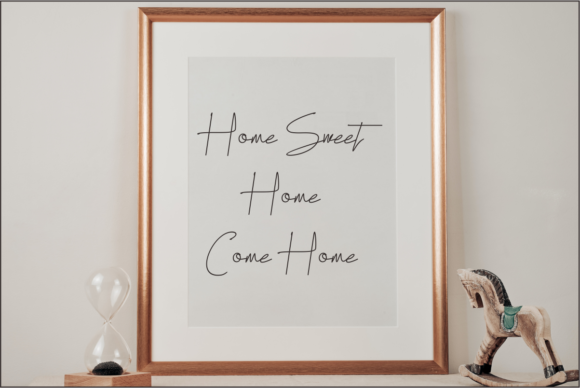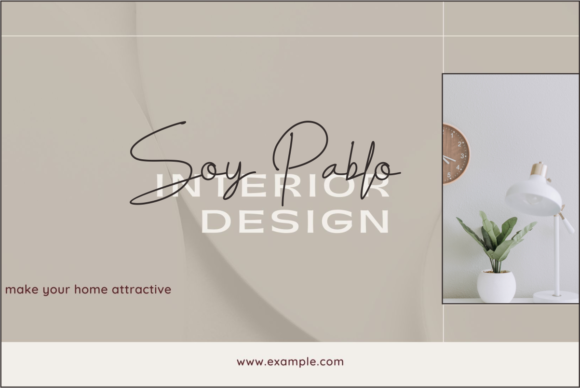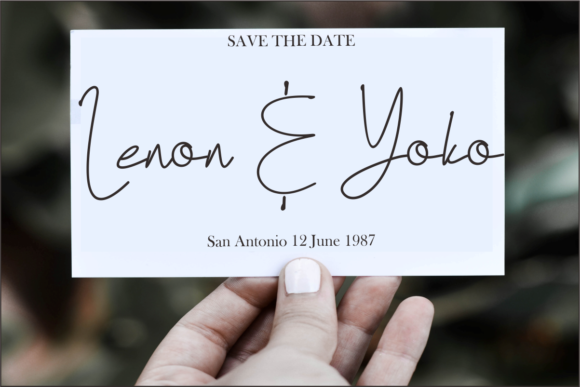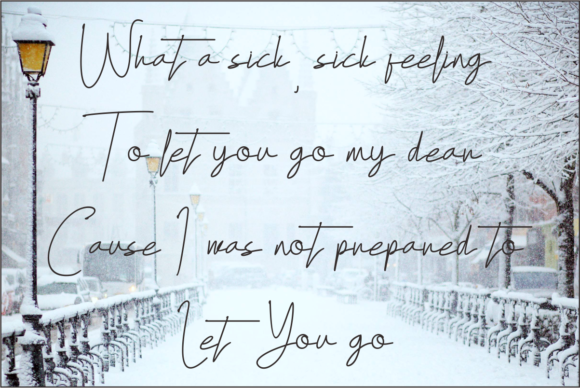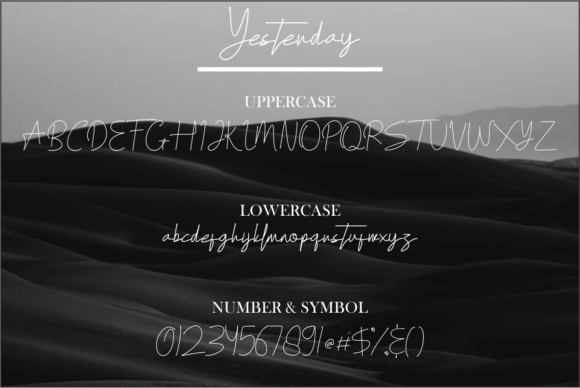
Yesterday Font
About Yesterday Font
Yesterday is a flowing handwritten font, distinguished by its elegant touch, making it an ideal choice for your favorite projects. Immerse yourself in its incredibly distinct and timeless style, and let it become the key element for creating spectacular designs that leave a lasting impression.
The flowing nature of Yesterday brings a sense of grace and fluidity to your text, contributing to an overall visual appeal that is both sophisticated and charming. Its handwritten elegance adds a personal and authentic touch to your designs, making it well-suited for a wide range of creative applications.
The distinct and timeless style of Yesterday ensures that your designs maintain a classic and enduring quality. This feature makes it a versatile font, perfect for projects where you want the typography to stand the test of time, remaining relevant and captivating for years to come.
Whether you’re working on branding materials, invitations, or any creative endeavor that demands an elegant and flowing script, Yesterday rises to the occasion. Its adaptability allows it to seamlessly integrate into various design contexts, making it a go-to choice for crafting visually stunning and impactful designs.
In summary, Yesterday is more than just a font; it’s a creative companion that brings an elegant and timeless touch to your projects. Let its flowing handwritten style inspire your designs, and fall in love with the enduring beauty it adds to your creations.